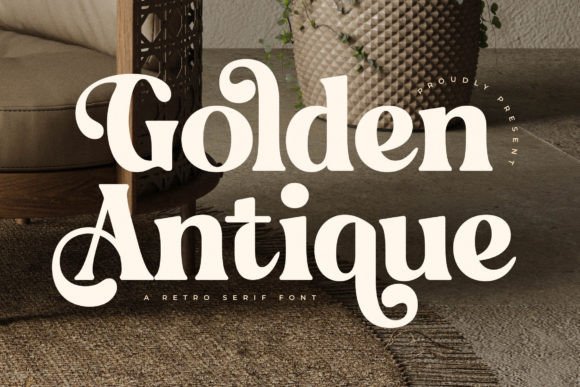
Golden Antique Font: Elevate Your Designs with Luxury and Elegance
The Golden Antique Font, also known as Golden Antique – Retro Serif Font from Letterena, is a stunning luxury serif font designed to add a touch of elegance and sophistication to any project. This beautiful font is perfect for designers, artists, and crafters looking to create high-end designs that exude luxury and refinement.
What is Golden Antique Font?
Golden Antique Font is a meticulously crafted serif font that draws inspiration from traditional antique typography. Its classic design features intricate details, elegant lines, and a sophisticated aesthetic that evokes a sense of luxury and refinement. This font is ideal for creating high-end designs that require a touch of elegance and poise.
Characteristics of Golden Antique Font
The Golden Antique Font boasts several distinctive characteristics that make it an exceptional choice for luxury designs. Some of its notable features include:
- Intricate details: The font features delicate details that add a touch of sophistication and elegance to any design.
- Classic serif design: The font’s serif design is reminiscent of traditional antique typography, lending a sense of luxury and refinement to any project.
- Elegant lines: The font’s lines are smooth and elegant, making it perfect for creating high-end designs that require a touch of sophistication.
Uses of Golden Antique Font
The Golden Antique Font is an incredibly versatile font that can be used for a wide range of projects, including:
- Logos: Create stunning logos that exude luxury and sophistication.
- Branding projects: Use the font to create high-end branding materials that reflect your brand’s luxury image.
- Homeware designs: Add a touch of elegance to your homeware designs, such as stationery, invitations, and packaging.
- Product packaging: Create luxurious product packaging that stands out on store shelves.
- Mugs: Design beautiful mugs with elegant typography.
- Quotes: Create stunning quote posters and social media graphics.
- Posters: Design eye-catching posters that showcase your brand’s luxury image.
- Shopping bags: Add a touch of luxury to your shopping bags and packaging materials.
- T-shirts: Create stylish t-shirts with elegant typography.
- Book covers: Design beautiful book covers that reflect the book’s content and tone.
- Name cards: Create elegant name cards for special events and conferences.
- Invitation cards: Design stunning invitation cards for weddings, parties, and other special events.
- Greeting cards: Create beautiful greeting cards for holidays and special occasions.
- Labels: Use the font to create elegant labels for products and packaging materials.
- Photography: Add a touch of luxury to your photography with elegant typography and watermarks.
- Watermark: Create elegant watermarks for your digital images and designs.
- Special events: Use the font to create stunning designs for special events, such as weddings, parties, and conferences.
Why Choose Golden Antique Font?
The Golden Antique Font is an exceptional choice for designers and artists looking to create high-end designs that exude luxury and sophistication. Here are some reasons why you should choose this font:
- Unique design: The font features a unique design that sets it apart from other serif fonts.
- Elegant aesthetic: The font’s elegant aesthetic makes it perfect for creating high-end designs that require a touch of sophistication.
- Versatility: The font is incredibly versatile and can be used for a wide range of projects.
Tips for Using Golden Antique Font
Here are some tips for using the Golden Antique Font:
- Use it sparingly: Use the font sparingly to create a sense of luxury and sophistication.
- Pair it with other fonts: Pair the font with other fonts to create a unique and elegant design.
- Experiment with colors: Experiment with different colors to find the perfect combination that complements the font.
The Golden Antique Font is an exceptional luxury serif font that can elevate your designs to new heights. Its elegant aesthetic, intricate details, and versatility make it perfect for creating high-end designs that exude luxury and sophistication. Whether you’re a designer, artist, or crafter, this font is sure to become a valuable addition to your design arsenal.